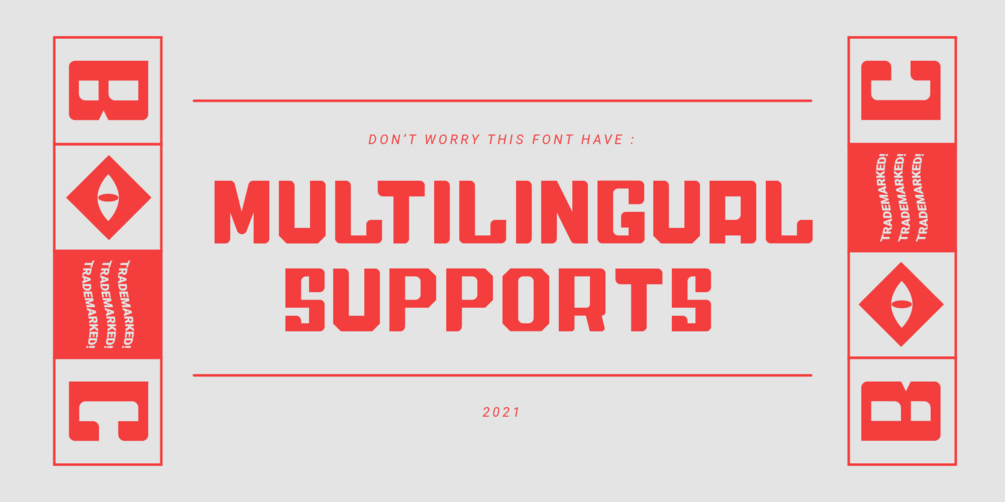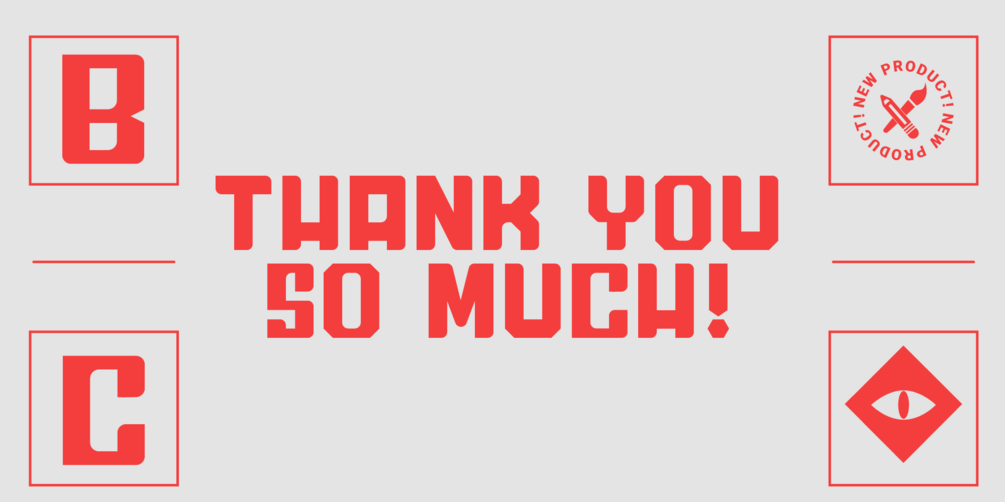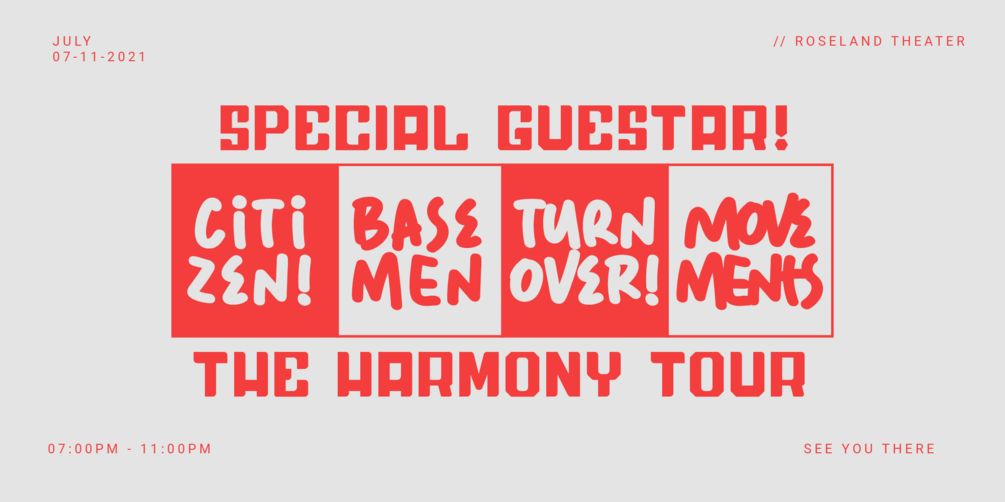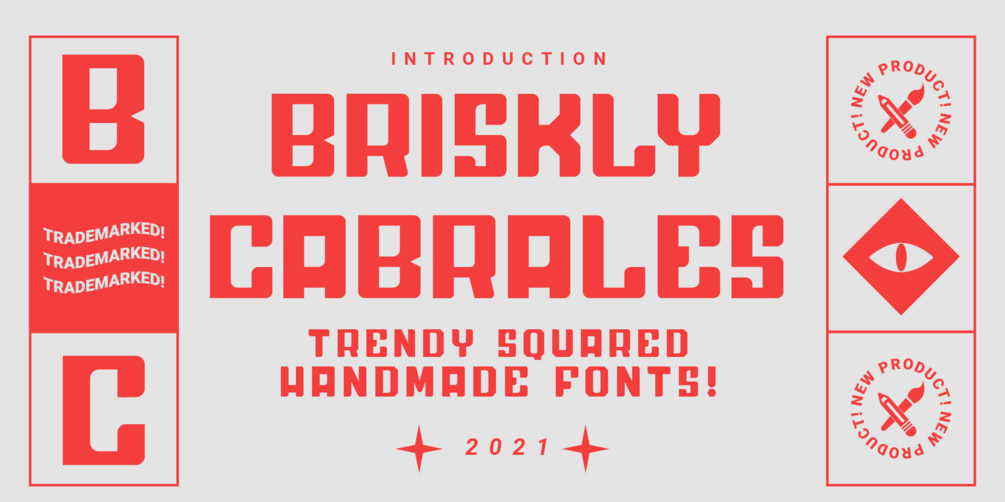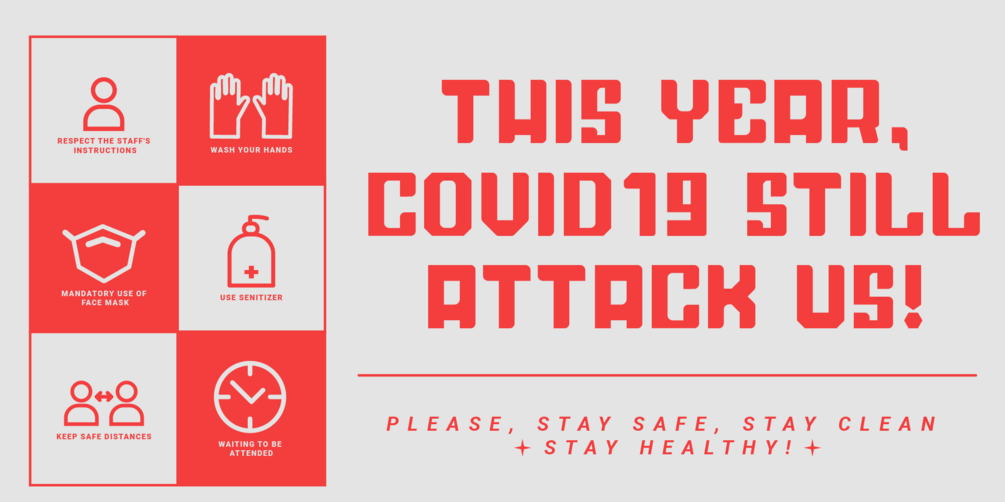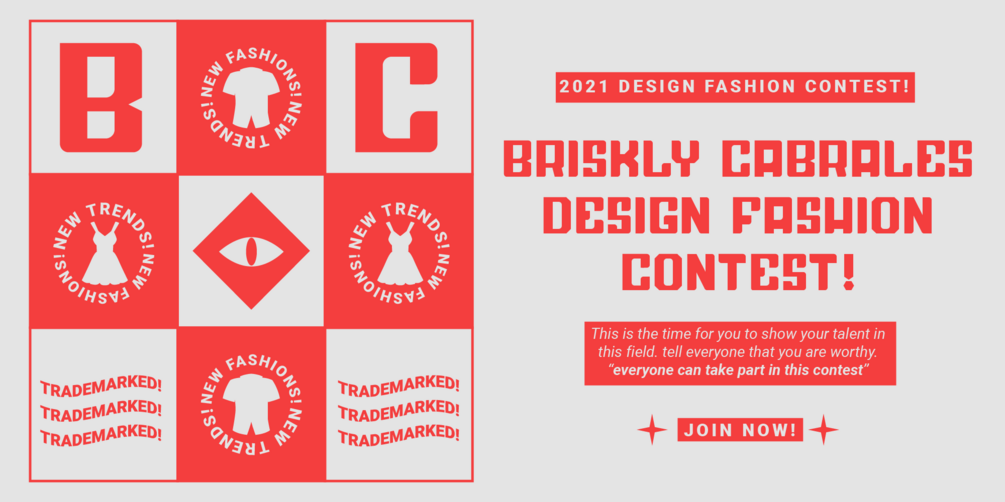
Briskly Cabrales - Trendy Squared Fonts
"Briskly Cabrales" The Briskly Cabrales is block handmade font.
Strong, elegant, modern, calm.
Uppercase
Lowercase
Numerals
Symbols
European Multilingual